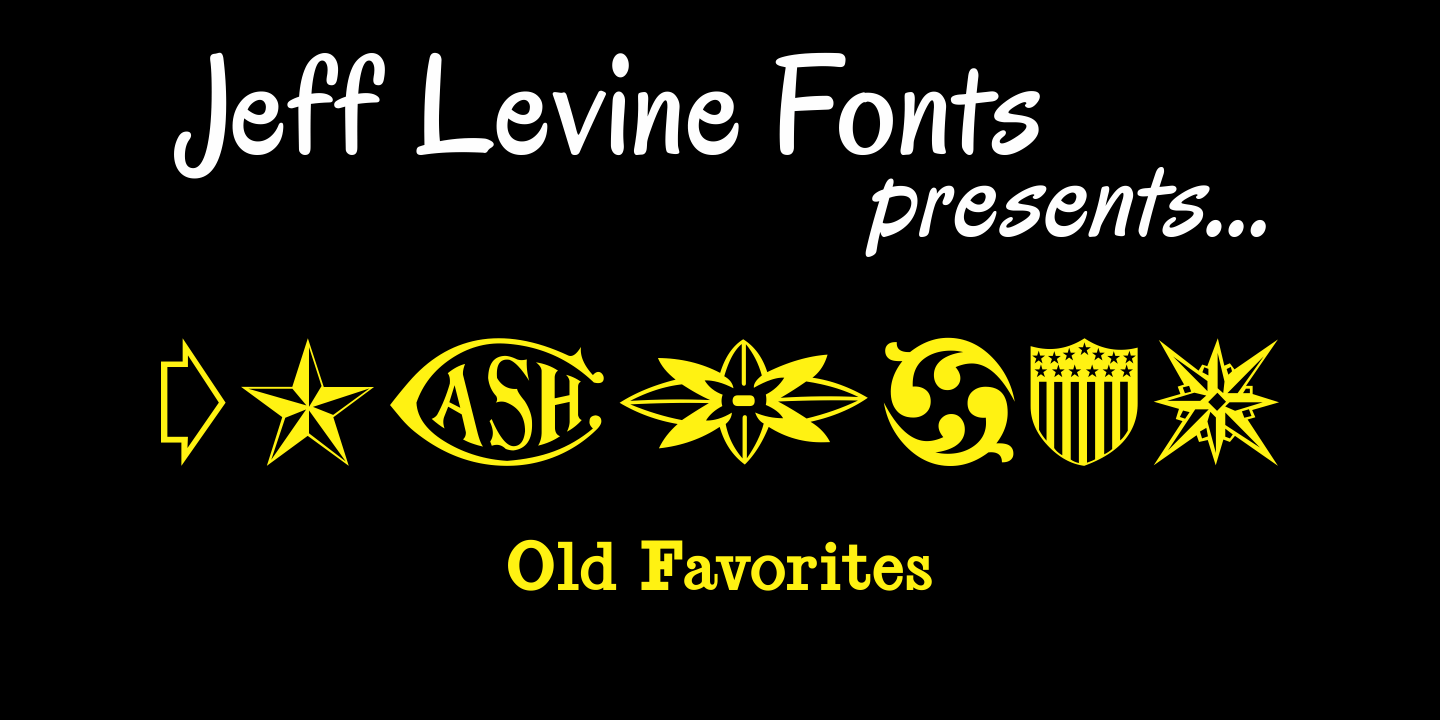
Old Favorites
Old Favorites JNL is a collection of over 35 dingbats based on designs from the early days of printing. These timeless images will fill a variety of needs.